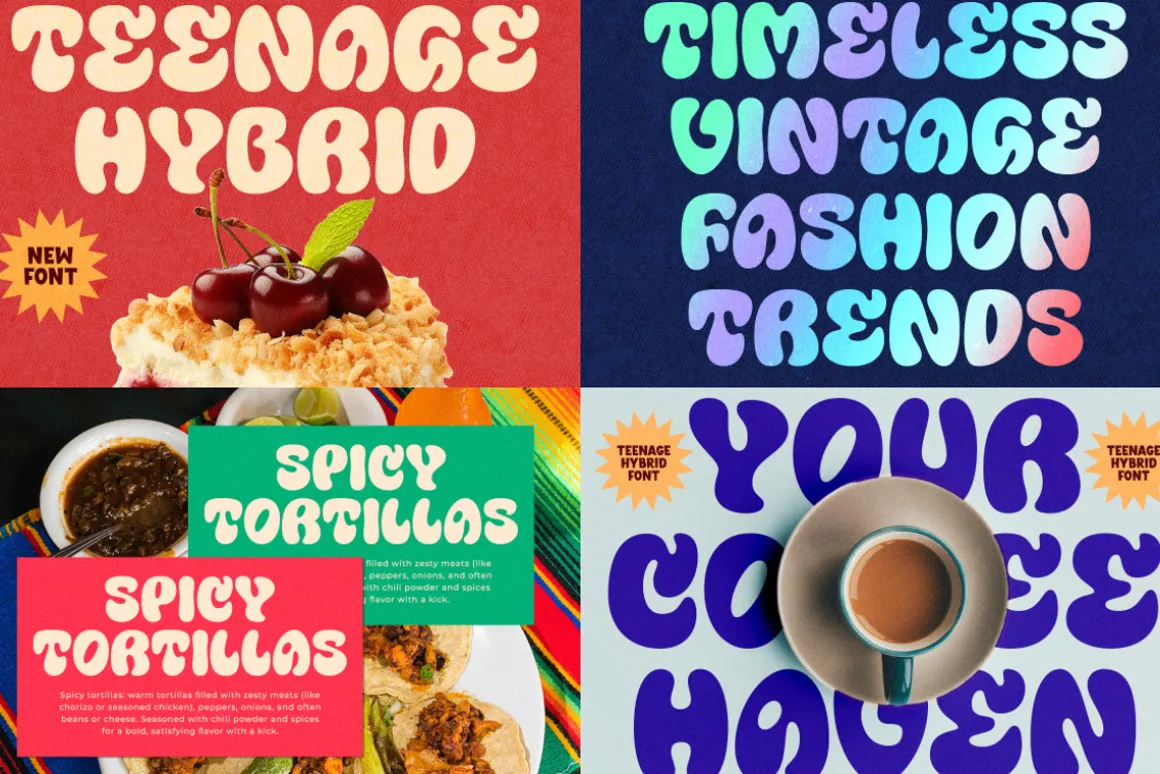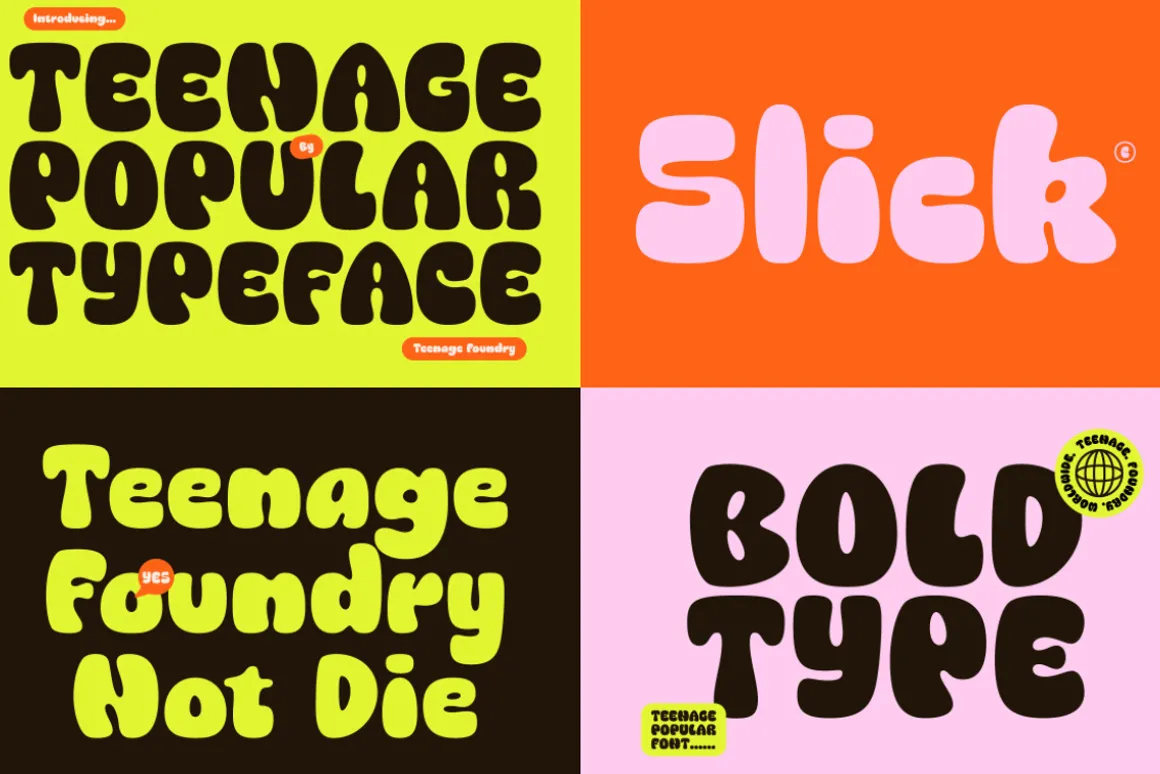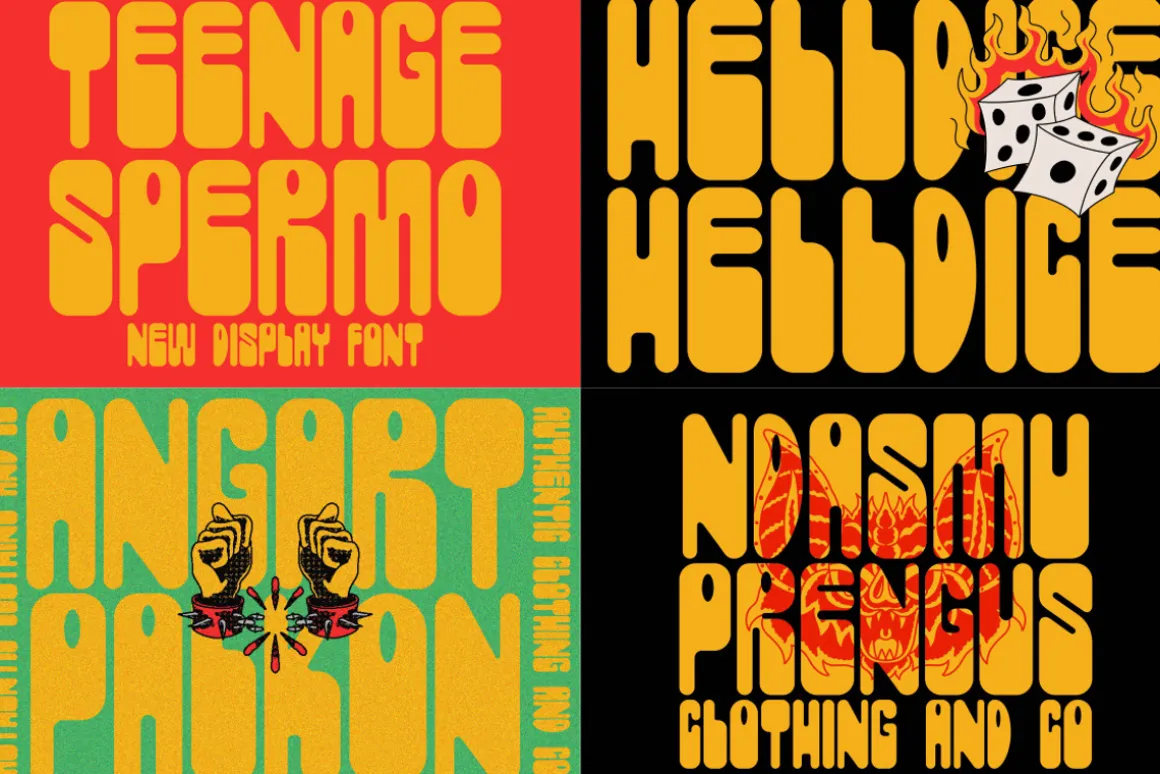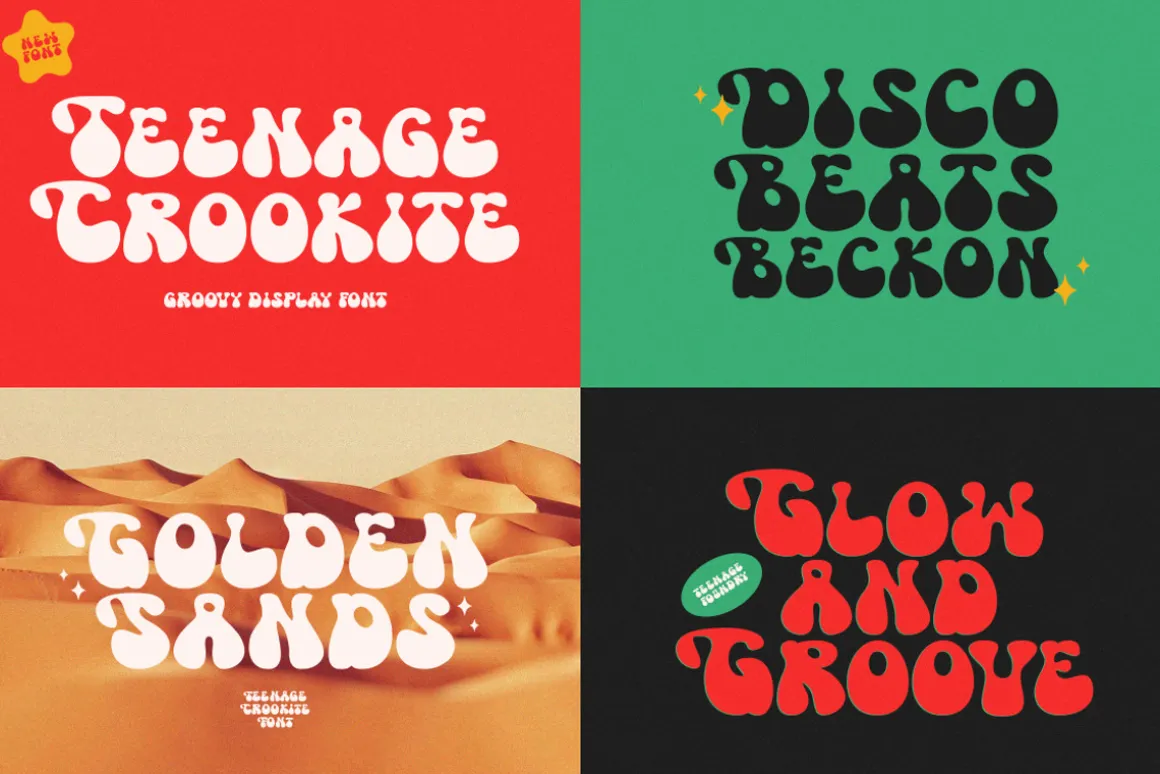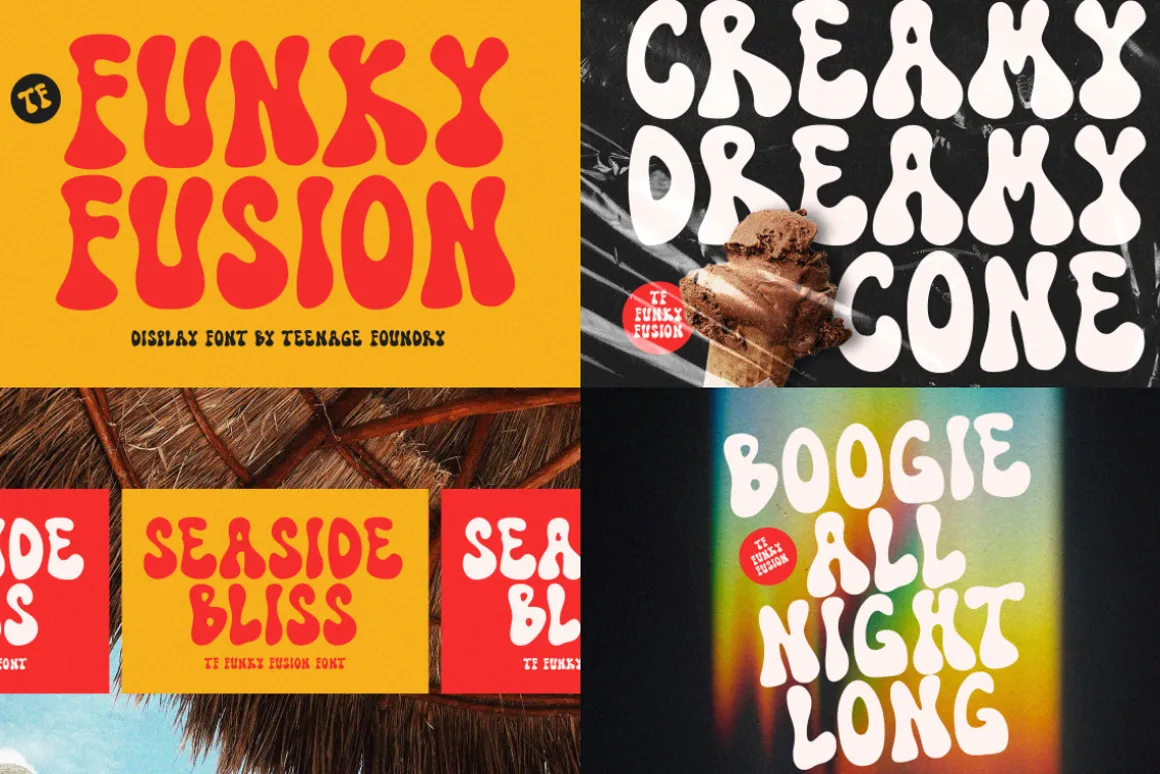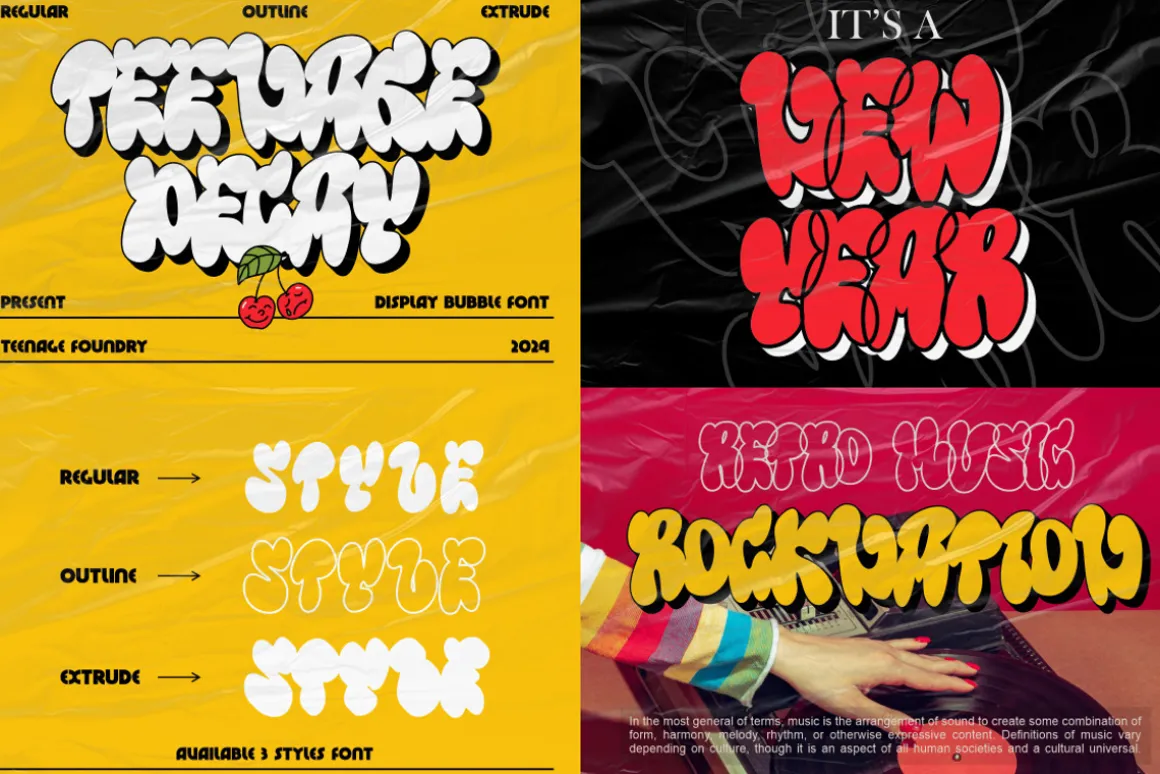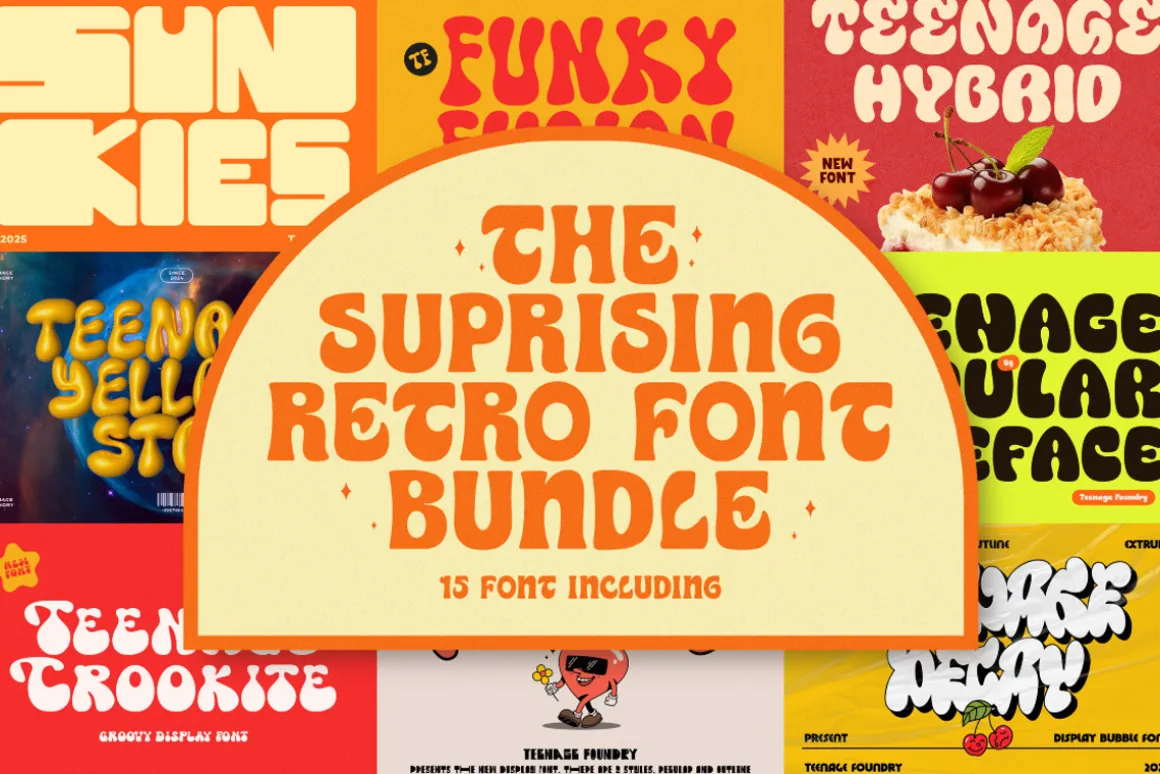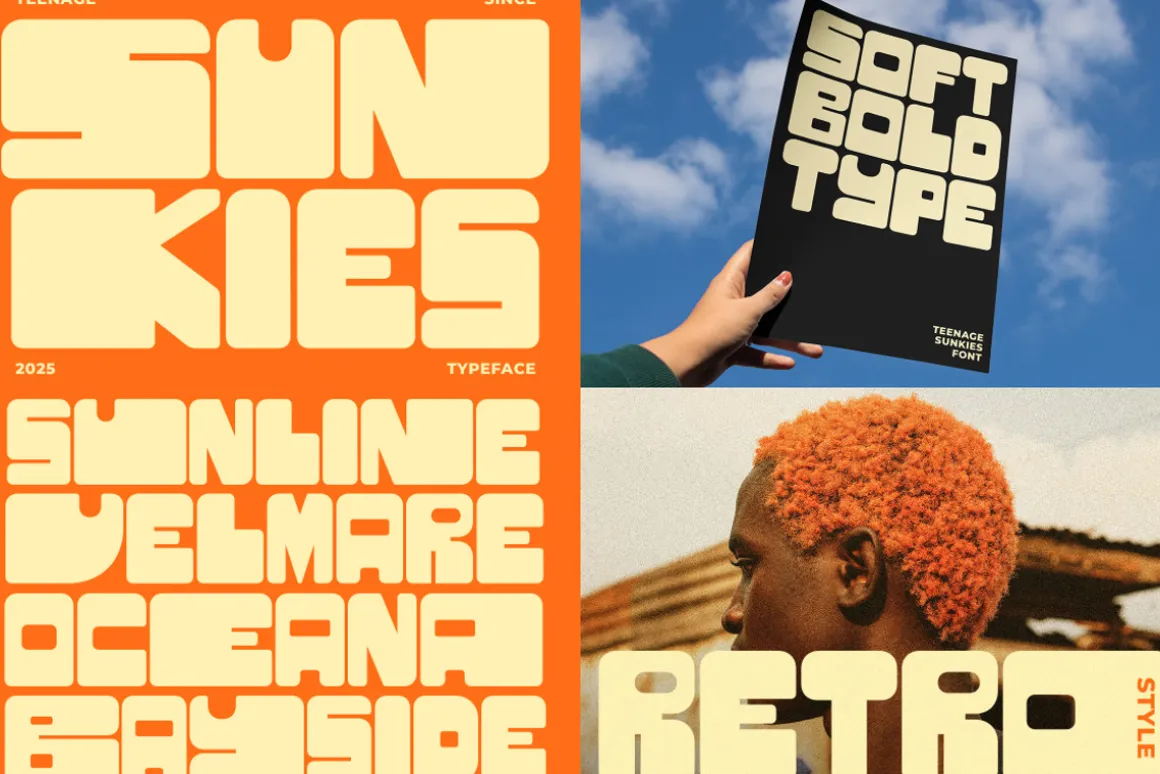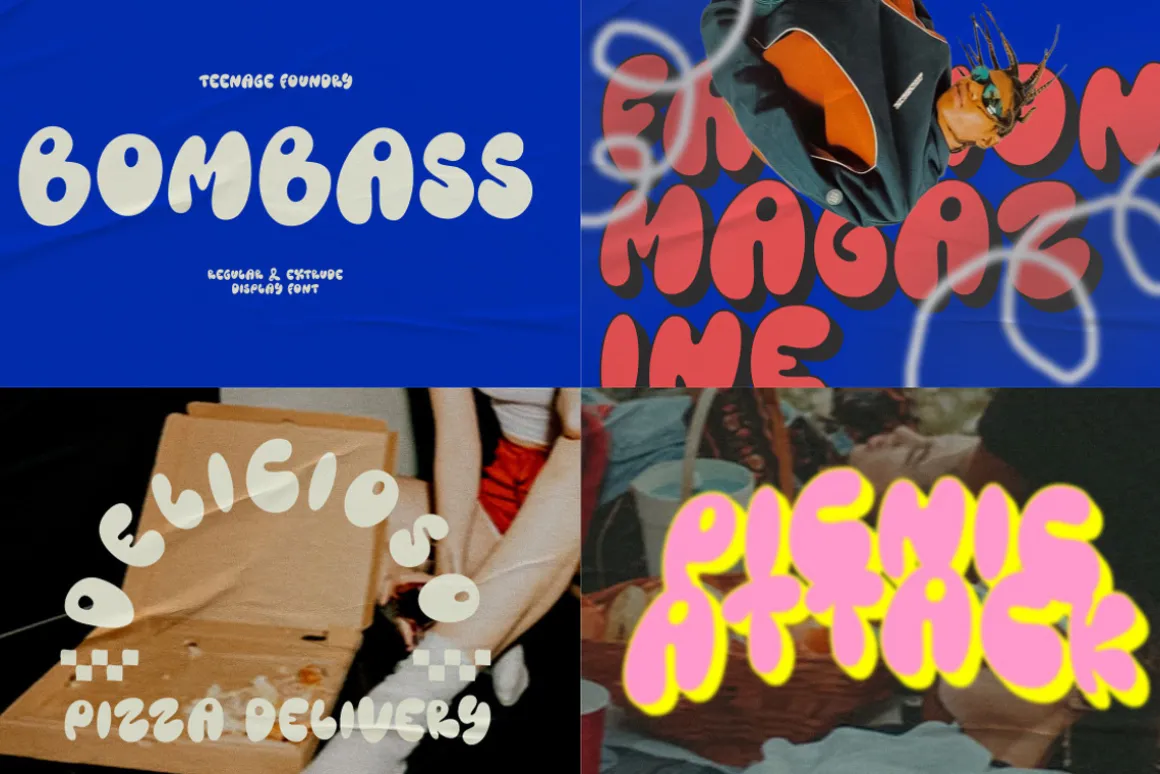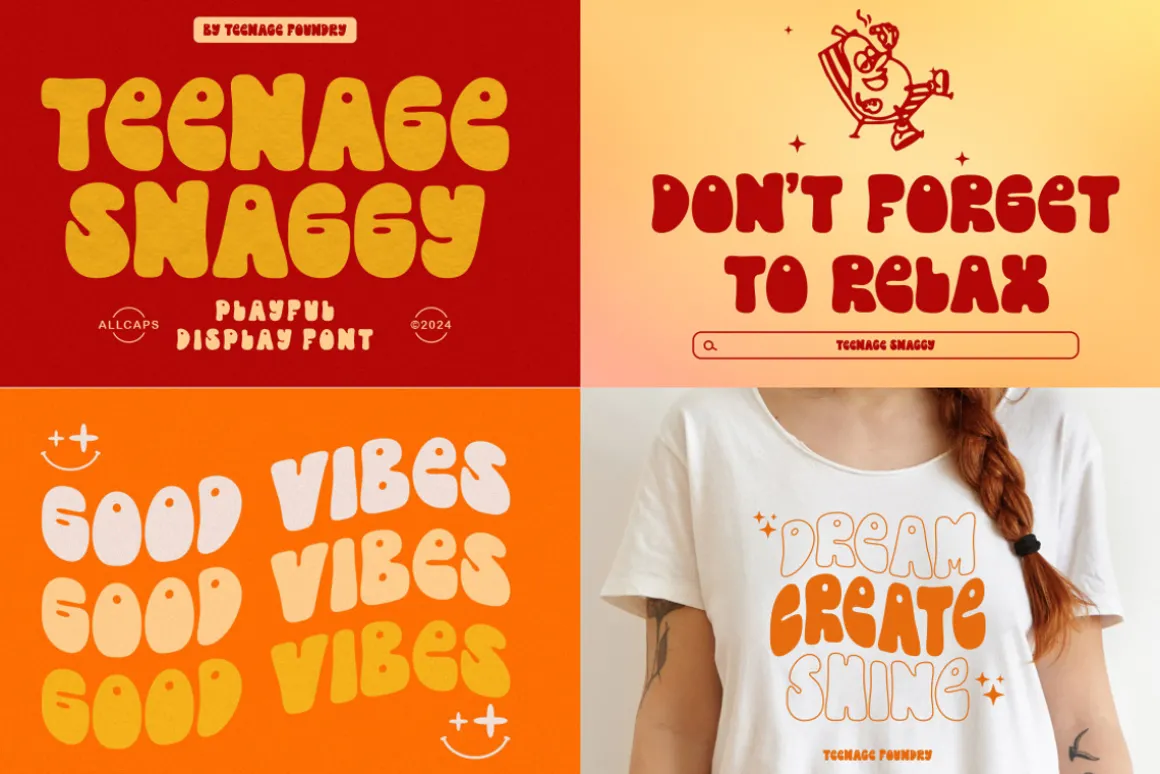
The Suprising Retro Font Bundle
The Surprising Retro Font Bundle offers a collection of 15 unique and charming fonts that evoke a nostalgic, retro feel.
This bundle is perfect for adding a touch of vintage flair to your designs, whether for branding, posters, invitations, or other creative projects.
FONT INCLUDED :
- TF Madloud
- Teenage Spermo
- Teenage Kloudy
- TF Bombass
- Teenage Popular
- Teenage Madness
- Teenage Sunkies
- Teenage Gonabe
- Teenage Decay
- Teenage Hybrid
- Teenage Crookite
- Teenage Closel
- TF Funky Fusion
- Teenage Yellow Star
- Teenage Snaggy